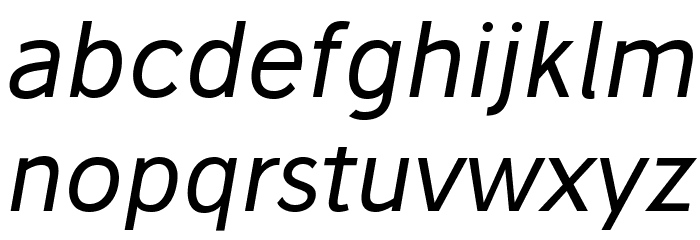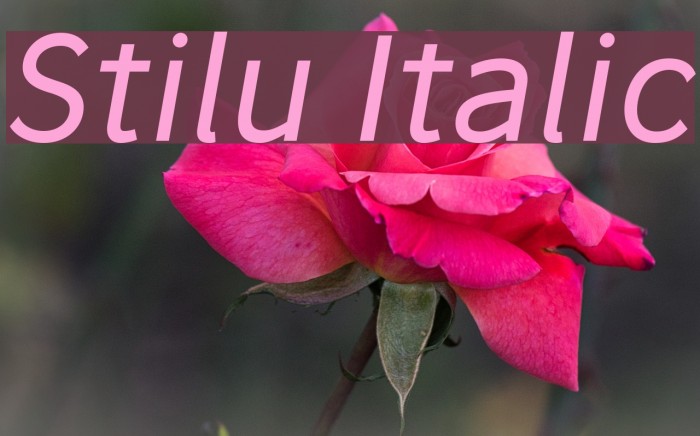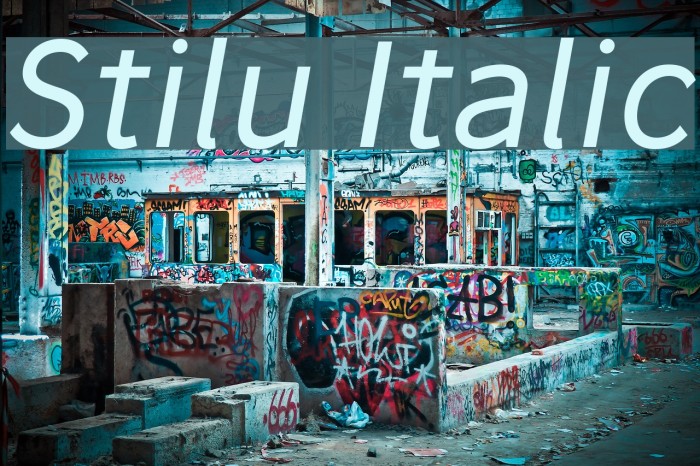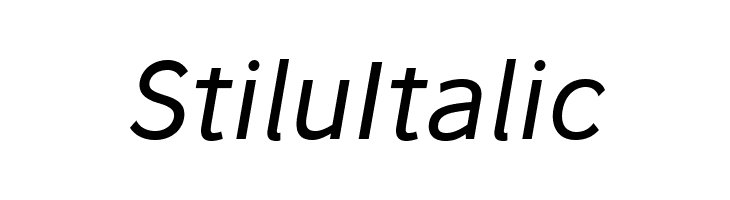
Stilu Italic Font
This font presents a sleek and modern italic style, characterized by its smooth curves and slightly slanted letters. The uppercase and lowercase letters maintain a consistent flow, enhancing readability while adding a touch of elegance. The numerals are clear and distinct, complementing the alphabet with their uniform design. Special characters are well-integrated, ensuring versatility across various applications. The overall appearance is clean and professional, making it suitable for both digital and print media.
A sleek, modern italic font with smooth curves and a professional appearance.
- Proposed Projects: Ideal for branding, editorial design, websites, and advertising materials where a modern and elegant touch is desired.